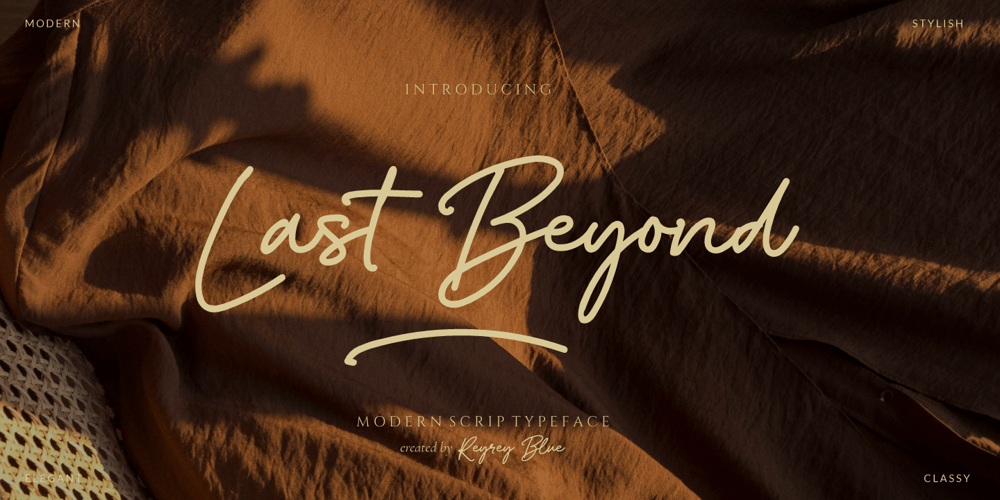
Last Beyond Font Family was designed by Risca Anitawati and published by Reyrey Blue Std. Last Beyond contains 1 styles and family package options. Last Beyond is stylish signature font made with a modern and elegant touch to give your any project to a unique design.This font is perfect for your creative ideas, both formal and informal. It has a modern style with a touch of creative ideas that is very suitable to be applied anywhere that requires creative ideas such as invitation cards, letterheads, website logos, social media, banners, advertisements, brochures, packaging products, leather products, and any product that requires writing.Features :· All Uppercase and Lowercase· Number & Symbol· Supported Languages· Alternates and Ligatures· PUA EncodedHope you enjoy with our font!